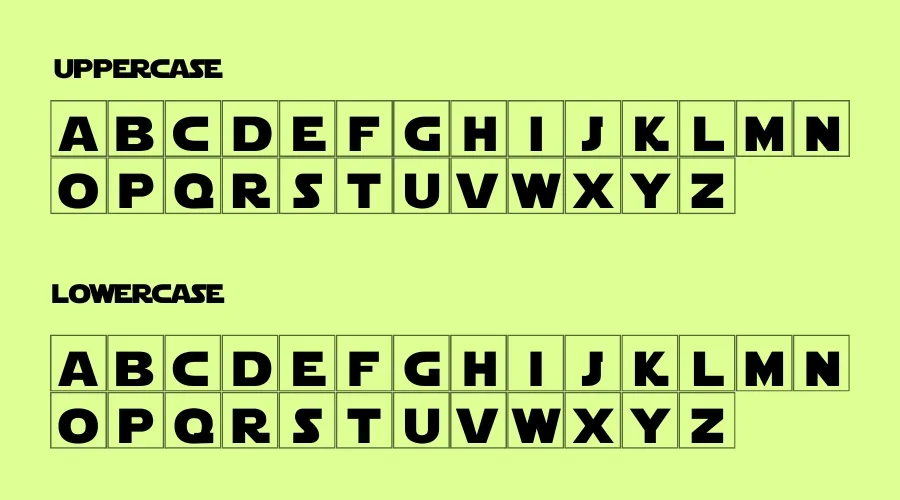
About Star Wars Font
In 1976, this gorgeous font was designed by a well-known typographic designer named Ralph McQuarrie. The Star wars font is based on the logo texture and is very similar to a famous typeface known as the name of the Star Jadi font that was created by Boba Fonts. It is suitable for various kinds of tasks and methods and is available in both OTF and TTF file formats.
This stunning texture has an online generator tool, in which you may change all your normal types of alphabet characters into stylish and attractive shapes. This font goes well with the alien font and is the perfect choice for both CSS and adobe photoshops.
It contains various types of styles and weights such as bold, italic, and regular. This gorgeous font has various types of characters such as uppercase letters, symbols, numerals, digits, and many other purposes.